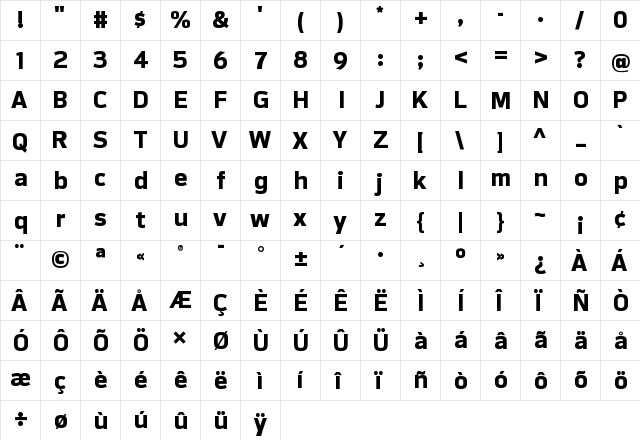
EndzoneSans-Bold
Design Context for EndzoneSans-Bold Typeface
EndzoneSans-Bold takes a measured approach to typography — its balanced proportions and neutral character make it a reliable workhorse for both digital and print work. The heavy weight commands attention and anchors typographic hierarchies.